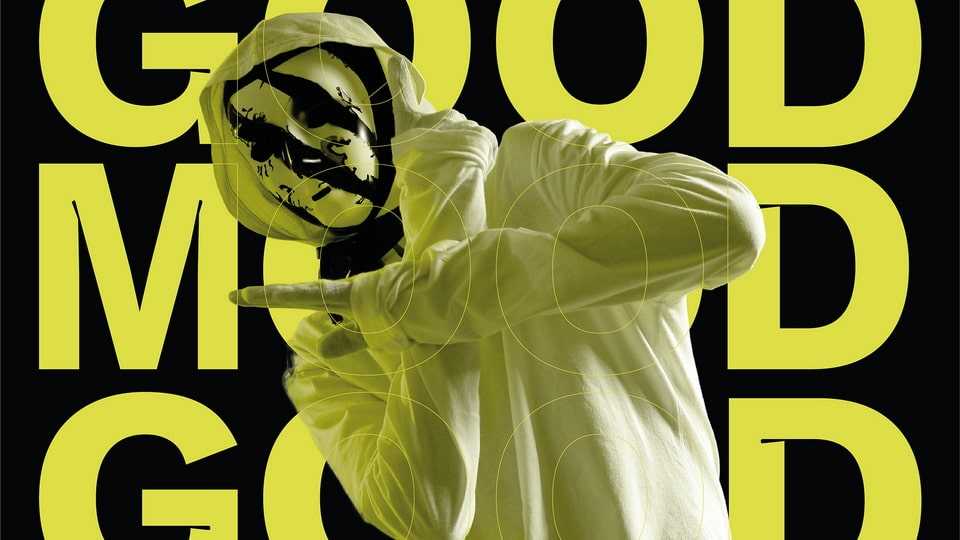
Download JM Modern font, a cutting-edge and impactful sans-serif typeface that seamlessly merges contemporary boldness with intricate inktraps. JM Modern font is a visual testament to modern design, combining robust letterforms with subtle inktrap details to create a unique and striking typographic experience.
Designer: Jean-Marc Mhanna